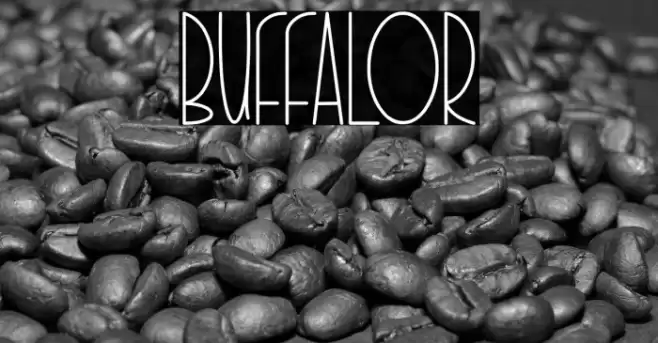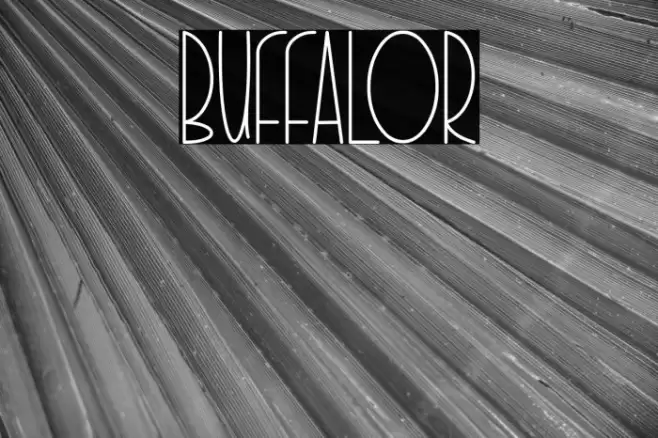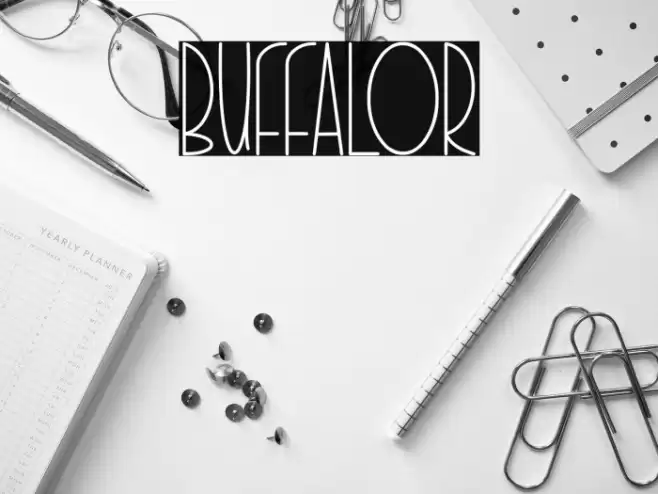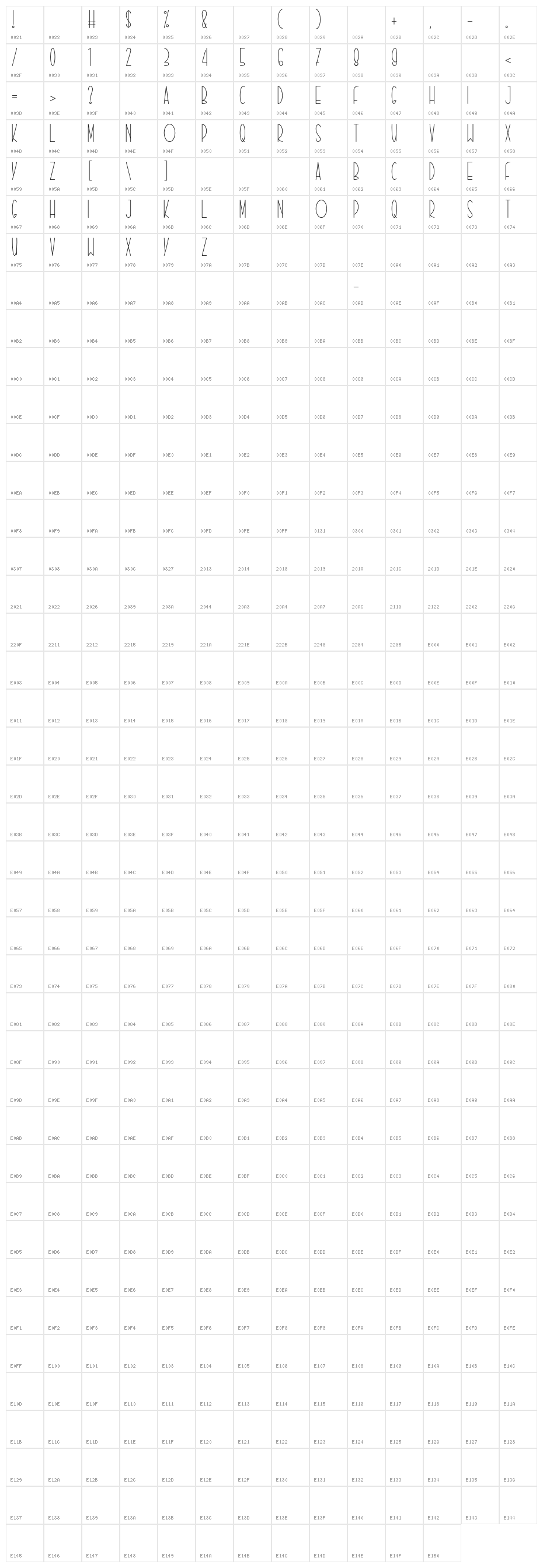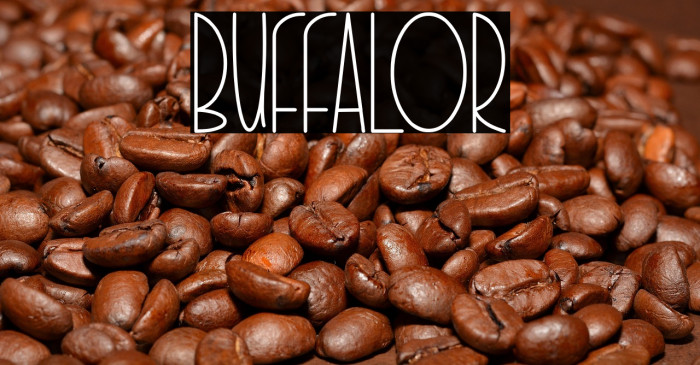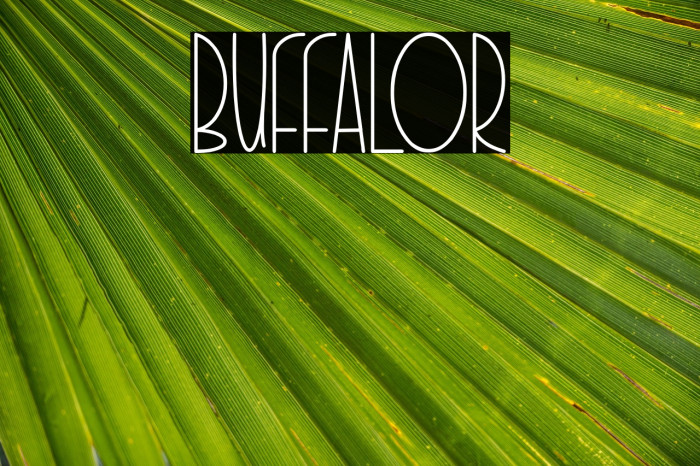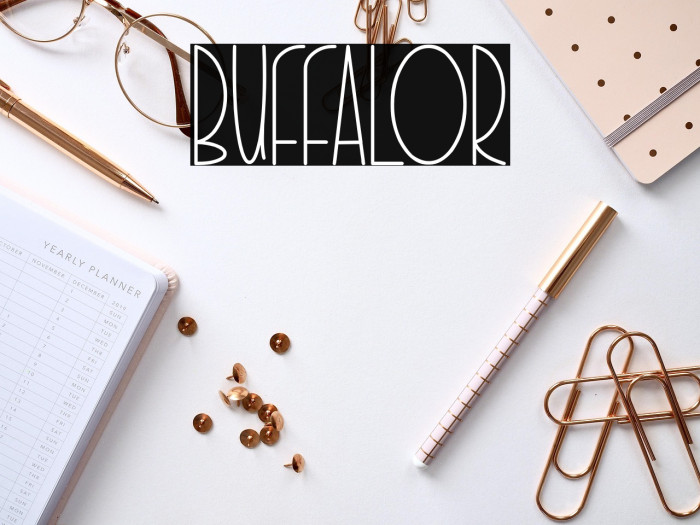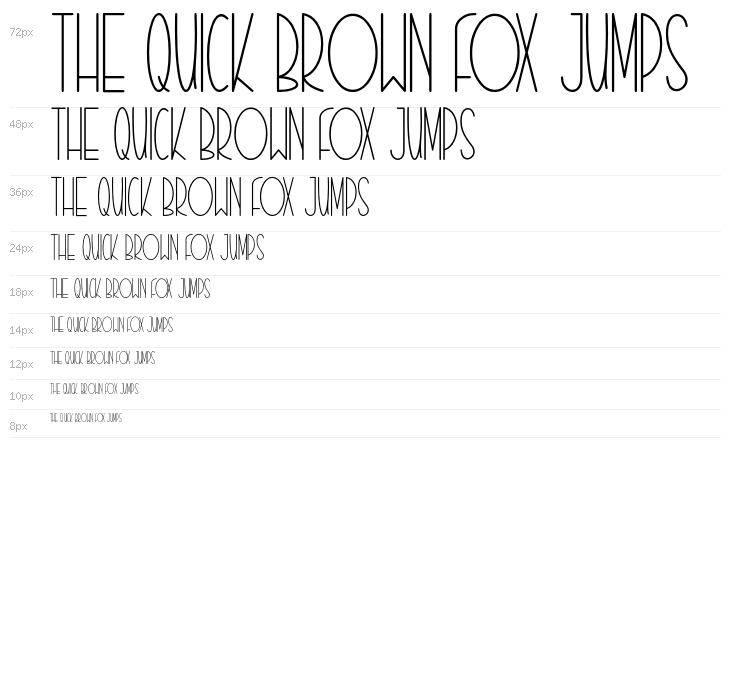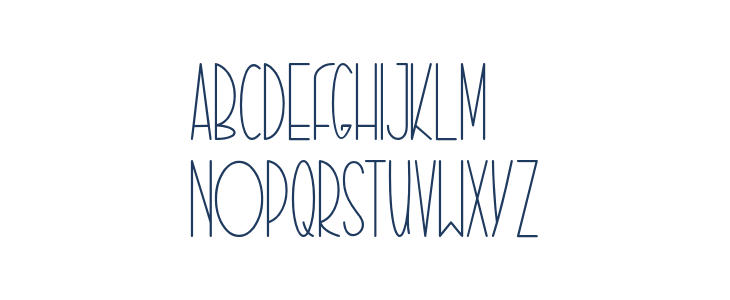
BUFFALOR Font
BUFFALOR Description
This font features tall, narrow characters with a distinctively modern and minimalistic style. The uppercase letters are elongated, giving a sleek and elegant appearance. The lowercase letters maintain a consistent height, complementing the uppercase with a harmonious balance. Numbers and special characters follow the same narrow and elongated design, ensuring uniformity across all elements. The thin strokes and high contrast between the height and width of the characters create a striking visual impact, making it suitable for eye-catching designs.
A tall, narrow, and modern font with high contrast and minimalistic style from Regular fonts.
- Proposed Projects: Ideal for fashion magazines, luxury branding, modern posters, and minimalist web design.